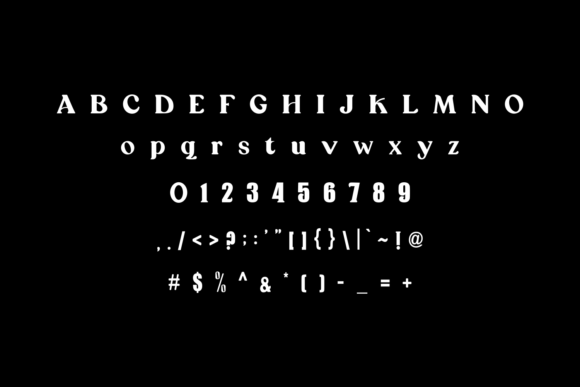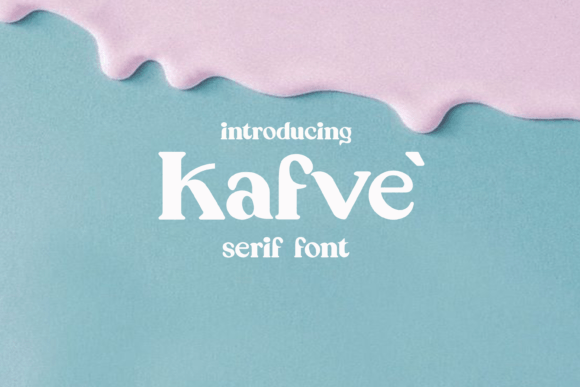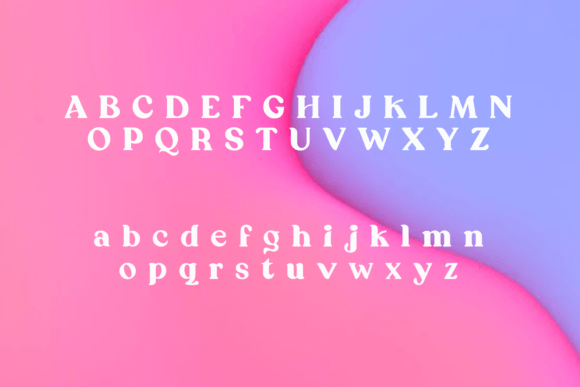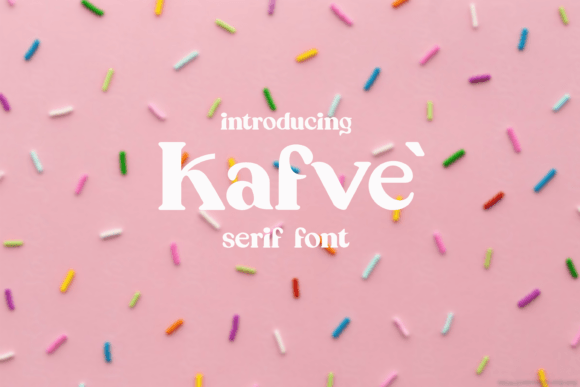
Introduction to Kafve Font
Do you remember that moment when you’re working on a creative project, and you stumble upon the perfect font to bring your vision to life? For designers, this moment is pure magic. It’s when all the pieces come together, and your design starts to shine. This time, we’re excited to share with you a game-changing font that’s sure to become your new favorite – the Kafve Font.
This cool and unique display font is a valuable addition to any designer’s library. With its high-quality design, it has the potential to elevate any creation, whether you’re working on a free download project or a commercial design. The Kafve Font’s versatility makes it an ideal design resource for any creative project, from social media graphics to advertising campaigns.
One of the standout features of the Kafve Font is its transparent background, allowing you to easily customize it to fit your design needs. Whether you’re a seasoned designer or just starting out, this font is sure to become a trusted companion in your creative journey.
Key Features of Kafve Font
- High-quality, unique design ideal for creative projects and artistic expressions.
- Features a transparent background, allowing for seamless integration into designs with complex backgrounds.
- Supports a wide range of languages, making it a versatile font for international creative projects.
Honest Review: Kafve Font
I recently had the chance to work with the Kafve Font and I must say it’s been a game-changer for my creative projects. As a designer, I’m always on the lookout for high-quality design resources that can elevate my work and make it stand out. The Kafve Font is one such resource.
Here are some things that I really like about the Kafve Font:
- ✨ It comes with a transparent background, making it super easy to integrate into any design project.
- ✨ The font is highly customizable, allowing me to tweak the settings to suit my specific design needs.
Overall, I’m really impressed with the Kafve Font and would definitely recommend it to designers looking for a high-quality design resource for their creative projects. With its transparent background and customizable settings, it’s a great choice for designers who want to add a touch of elegance and sophistication to their work.
Tips for Getting the Most Out of the Kafve Font
For optimal results, use the Kafve Font on a transparent background to create a high-quality design. This font is perfect for creative projects that require a unique and eye-catching design.
The Kafve Font is ideal for use in logos, branding materials, and marketing campaigns. It’s also great for creating social media graphics, presentations, and posters.
Nunito Font is similar to Kafve Font in terms of its clean and modern aesthetic, but it has a more rounded and friendly feel. While Kafve Font has a more edgy and geometric look, Nunito Font is more versatile and can be used in a variety of contexts.